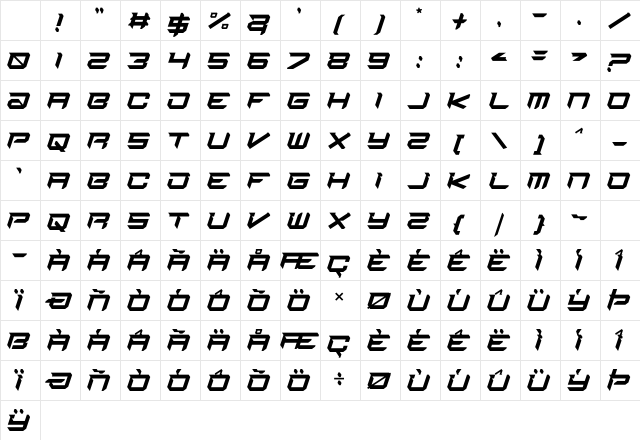
Complete Aerobody Regular glyph index. Displaying only characters natively supported by Aerobody Regular font.
Aerobody is a composed and adaptable typeface that performs quietly and consistently across a wide range of design contexts.